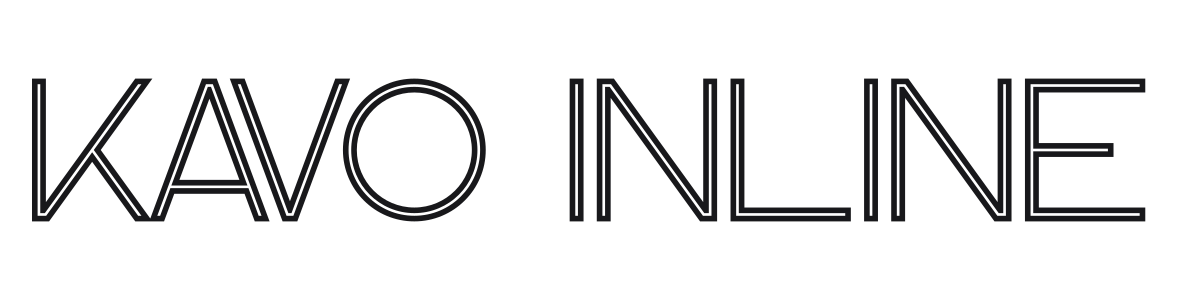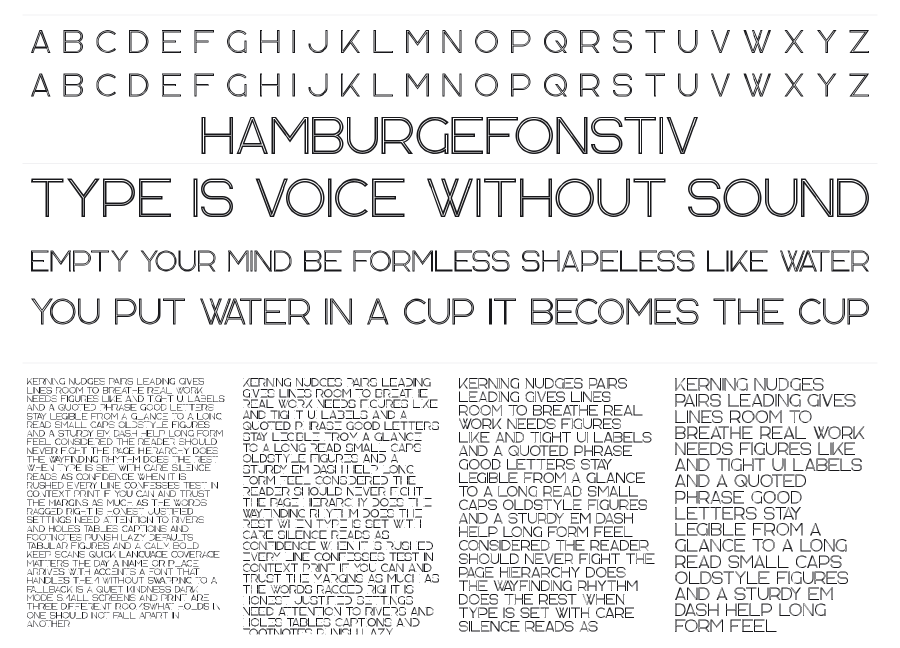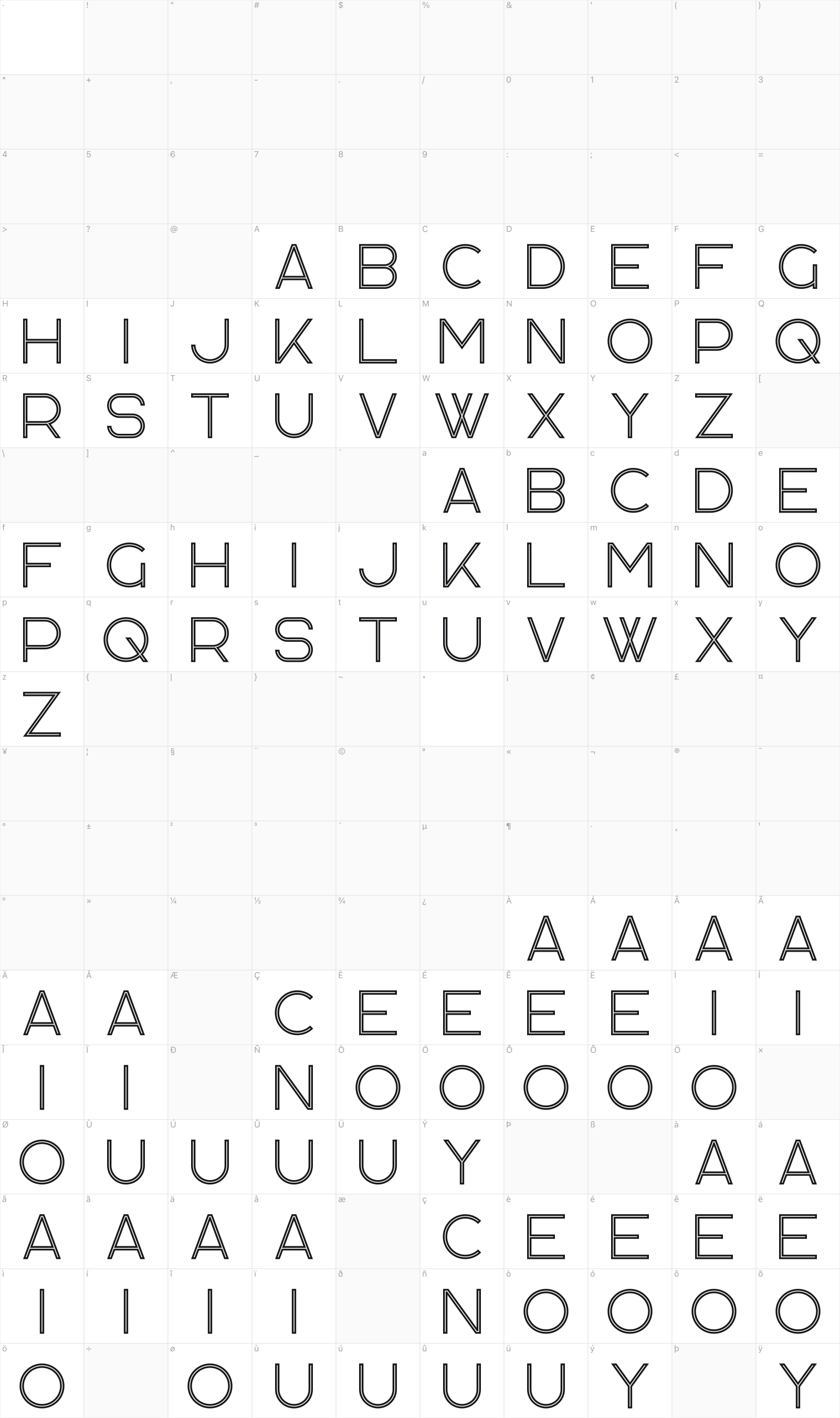
Kavo Inline
Kavo Inline is a geometric sans-serif built on a double-stroke outline construction that gives every character a sleek, luminous feel. The uniform line weight and wide, open proportions keep it clean and contemporary, somewhere between art deco restraint and modern luxury branding. It reads with quiet confidence at large sizes, where the inline detail can breathe.